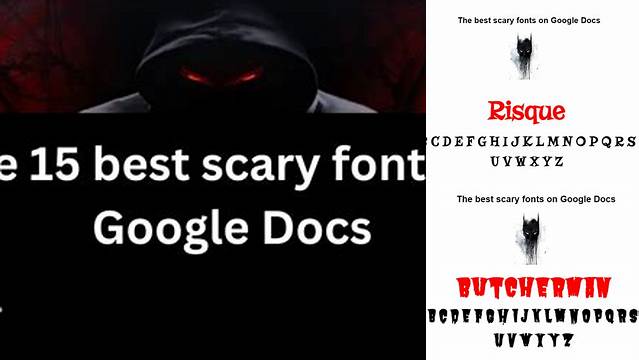
Scary Story Fonts For Google Docs
Hey guys! So, you're looking to amp up the spook factor in your Google Docs scary stories, huh? That's awesome! Choosing the right font can totally transform your writing from just words on a page to an immersive, chilling experience. It's like picking the perfect soundtrack for a horror movie – it sets the mood, builds suspense, and makes your readers' skin crawl. We're gonna dive deep into the world of fonts that scream 'creepy' and help you find that perfect typeface to make your terrifying tales truly unforgettable. Let's get this spooky party started!
The Power of Typography in Horror
Alright, let's talk about why fonts matter so darn much, especially when you're crafting a spine-chilling narrative. Think about it – when you see text in a super playful, rounded font, you probably don't feel a sense of dread, right? But then, you encounter a jagged, sharp font, and your brain immediately flags it as something potentially unsettling. That's the magic of typography, guys! For scary stories, the font isn't just decorative; it's a crucial storytelling tool. It can subtly (or not so subtly!) hint at the tone of your story, the nature of the threat, and even the psychological state of your characters. A wobbly, distressed font might suggest madness or decay, while a thin, elongated font could evoke a sense of fragility or a looming, skeletal presence. When you're writing for Google Docs, you have a pretty decent selection right at your fingertips, and knowing which ones to lean on can seriously elevate your horror game. It's all about creating an atmosphere, and your font choice is a silent, yet powerful, narrator in that process. So, let's explore some of the best options available to get that perfect, eerie vibe going for your next masterpiece!
Classic Serif Fonts for Gothic Horror
When you're aiming for that old-school, gothic horror vibe, you can't go wrong with classic serif fonts. Think Edgar Allan Poe, Bram Stoker, or Mary Shelley – their stories often conjure images of dusty libraries, flickering candlelight, and ancient curses. Serif fonts, with their little 'feet' or decorative strokes at the ends of letters, have a traditional, sophisticated feel that lends itself perfectly to these kinds of tales. They evoke a sense of history, formality, and often, a hidden darkness lurking beneath a polished surface. Imagine reading about a haunted mansion or a vengeful spirit, and the text itself looks like it belongs in a centuries-old tome. That's the power of a good serif! For Google Docs, you'll find some fantastic options. Fonts like Garamond, Times New Roman, and Georgia might seem commonplace, but in the context of a scary story, they can take on a whole new, sinister meaning. Garamond, with its elegant yet slightly austere feel, can suggest a brooding, intellectual horror. Times New Roman, while often seen as standard, possesses a certain gravitas that can underscore a tale of inescapable fate or psychological torment. Georgia, with its slightly wider stance and robust serifs, can feel grounded yet traditional, perfect for folklore-inspired horror or stories dealing with inherited dread. Don't underestimate these classics, guys! By choosing a serif font, you're tapping into a long literary tradition of horror, instantly signaling to your readers that they're about to embark on a journey into the unsettling and the profound. It's about creating a visual echo of the past, where shadows and secrets were often hidden in plain sight, just like those subtle serifs on the letters themselves.
Sans-Serif Fonts for Modern Thrillers
Now, if your scary story leans more towards the modern thriller or psychological horror genre, you might want to ditch the fancy serifs and go for something cleaner and more direct: sans-serif fonts. These fonts, as the name suggests, lack those little feet (serifs). They have a more contemporary, straightforward, and often stark appearance. Think about the sleek, minimalist design you see in modern tech thrillers or sci-fi horror. Sans-serif fonts convey a sense of immediacy, efficiency, and sometimes, a cold, clinical detachment. This can be super effective when you're dealing with themes of technology gone wrong, urban legends, or the unsettling nature of the mundane. For Google Docs, fonts like Arial, Verdana, and Roboto are your go-to guys. Arial, with its clean lines, can feel almost too normal, which makes the horror elements stand out in stark contrast. It's the unsettling calm before the storm. Verdana, designed for screen readability, has a friendly, open feel that can be jarring when juxtaposed with disturbing content, creating a sense of unease. Roboto, a popular choice for modern interfaces, offers a geometric and somewhat rigid structure that can emphasize control, order, and the potential for that order to be brutally disrupted. The starkness of sans-serifs allows the content of your horror to speak louder, without the visual distraction of decorative elements. It's about creating a sense of cold reality, where the horror isn't something mystical or ancient, but something immediate, plausible, and terrifyingly close. So, if your story involves hackers, AI gone rogue, or a chilling suburban nightmare, a sans-serif font is definitely your best bet, guys. It brings that contemporary edge that makes the terror feel all the more real.
Script Fonts for Creepy Handwritten Notes
Okay, imagine this: your reader is engrossed in your story, and suddenly, they encounter a passage that's clearly meant to be a ripped-out page from a diary, a frantic note passed between victims, or a cryptic message scrawled by a madman. What kind of font screams 'handwritten' and 'creepy' better than a script font? Script fonts mimic the look of handwriting, and when you choose the right one, you can inject a whole new level of dread and intimacy into your narrative. These fonts can convey desperation, instability, or a sense of a personal, unfiltered terror that typed text just can't capture. They feel immediate, raw, and deeply unsettling. In Google Docs, you might need to explore the 'More fonts' option to find some gems, but there are definitely script-style fonts that can work. Look for ones that are a bit irregular, perhaps slightly shaky, or have a flow that feels a little too frantic. Fonts that resemble distressed handwriting or have an almost illegible quality can be incredibly effective. Think about using a script font for a character's descent into madness, where their thoughts become increasingly fragmented and disturbing. Or perhaps for a series of cryptic warnings left by an unseen entity. The personal touch of a script font makes the horror feel more direct and inescapable. It's like the character's (or the monster's!) very thoughts are bleeding onto the page. The slight imperfections and the flow of script fonts can create a sense of unease, making the reader question the sanity of the writer or the true nature of the message being conveyed. It's a powerful tool for adding a layer of psychological depth and immediate horror. So, guys, don't shy away from script fonts – they can be your secret weapon for adding that perfect, chillingly personal touch to your scary stories!
Distressed and Grunge Fonts for Decay and Chaos
Sometimes, the horror isn't just psychological; it's visceral. It's about decay, destruction, and the breakdown of order. For these kinds of scary stories, you need fonts that look like they've been through the wringer. Distressed and grunge fonts are perfect for this. These fonts often have a rough, uneven, or 'damaged' appearance. Think ripped edges, ink splatters, worn textures, or a general sense of being broken. They immediately evoke feelings of rot, ruin, abandonment, and chaos. If your story involves a post-apocalyptic wasteland, a crumbling asylum, or creatures that are literally falling apart, these fonts are your best friends. They visually communicate the state of your world or your characters. In Google Docs, finding truly grungy fonts might take a bit of digging in the 'More fonts' section, or you might even consider adding a font if you're comfortable with that. However, you can often achieve a similar effect by modifying standard fonts – making them italic, bold, and perhaps playing with spacing if the tool allows. But if you can find a font that inherently looks weathered or broken, that's gold! Fonts that mimic stencil marks gone awry, have uneven 'ink' coverage, or look like they've been scraped onto a surface can be incredibly effective. They communicate a sense of struggle, of things falling apart, and of an environment that is actively hostile or decaying. This type of font choice really enhances the sensory experience of your horror, making the reader feel the grit, the grime, and the desperation. It’s about creating a visual representation of entropy and destruction. So, for stories where the setting itself is a source of horror, or where characters are physically or mentally deteriorating, distressed and grunge fonts are the way to go, guys!
Slab Serif Fonts for a Heavy, Ominous Feel
Let's talk about slab serif fonts, guys. If you're looking for a font that feels solid, heavy, and undeniably ominous, this is your jam. Slab serifs are characterized by their thick, block-like serifs – those little feet we talked about earlier? Well, in slab serifs, they're chunky and substantial. This gives the font a powerful, grounded, and often industrial or even retro feel. Think old Western movie titles, vintage signage, or classic horror movie posters from the 70s and 80s. They have a boldness that can be incredibly effective in horror because they command attention and can evoke a sense of brute force, inescapable fate, or a looming, heavy presence. For scary stories, a slab serif can suggest something powerful and relentless bearing down on your characters. It's not subtle; it's a direct, impactful statement. In Google Docs, you might find options like Arvo or Merriweather (which leans towards slab serif characteristics). Arvo is a great example – it's geometric, strong, and has those unmistakable thick serifs. Merriweather, while a bit more traditional, still carries a certain weight. Using a slab serif can make your titles or significant passages feel weighty and important, amplifying the sense of impending doom or a powerful, monstrous force. It’s a font that doesn't whisper; it thunders. This can be particularly effective for stories involving large, imposing creatures, industrial horrors, or narratives where the protagonist is up against an overwhelming, unyielding power. The sheer visual weight of the font mirrors the thematic weight of your story, making the horror feel substantial and hard to escape. So, when you want your horror to feel big, bold, and unavoidable, definitely consider a slab serif, guys!
Monospace Fonts for Computer-Based Horror
Alright, let's switch gears to a very specific type of horror: computer-based horror, or anything involving technology, code, or digital environments. For these kinds of scary stories, the absolute king is the monospace font. What's monospace, you ask? It means every character, from 'i' to 'w', takes up the exact same amount of horizontal space. Think of old typewriters or the command prompt on a computer screen. This gives monospace fonts a very distinct, rigid, and often retro-tech feel. For horror, this is gold! It immediately evokes the world of hacking, glitches, artificial intelligence gone rogue, or even cursed video games. The uniformity and mechanical nature of monospace fonts can feel cold, impersonal, and unnerving, which is perfect for stories where technology is the antagonist or the medium for horror. In Google Docs, you've got some solid choices. Courier New is the quintessential monospace font, instantly recognizable and associated with typing and code. Inconsolata is another great option, offering a slightly more modern take while maintaining that monospace structure. Source Code Pro is also excellent if available. When you use a monospace font, you're visually immersing your reader in the digital realm. It makes dialogue from an AI feel authentic, error messages look genuinely alarming, and snippets of code feel like they could unlock something terrifying. It adds a layer of realism to your tech-based horror that makes it all the more believable and, therefore, scarier. It's like looking directly into the machine, and realizing something sinister is looking back. So, guys, if your story involves anything digital or technological gone wrong, embrace the monospace font – it’s your most powerful ally in creating that chillingly authentic cyber-fear!
Condensed Fonts for Urgency and Claustrophobia
Ever read something where the text seems to be squeezed together, making you feel a bit... tight? That's the effect of condensed fonts, guys! Condensed, or narrow, fonts are taller and narrower than standard fonts, making them take up less horizontal space. This visual squeeze can be incredibly effective in horror, particularly when you want to convey a sense of urgency, panic, or claustrophobia. Imagine a character trapped in a small space, frantically trying to escape, and the text reflecting their desperation by being crammed together. It creates a feeling of being overwhelmed and hemmed in, mirroring the character's physical or psychological state. In Google Docs, you can find condensed versions of popular fonts, or dedicated condensed fonts like Oswald (which has a condensed style) or some variations you might find under 'More fonts'. The key is that packed, tight appearance. When used sparingly, a condensed font can highlight moments of extreme tension. Think of a chase scene, a moment of realization where everything is closing in, or dialogue exchanged under duress. The font itself seems to be struggling for breath, just like your character. This visual cue amplifies the emotional impact of the scene, making the reader feel the pressure alongside the protagonist. It's a subtle but powerful way to manipulate the reader's perception and deepen their immersion in the frightening situation. So, if you want your readers to feel the walls closing in or the clock ticking down with agonizing speed, give condensed fonts a try, guys. They're perfect for squeezing every last drop of tension out of those critical moments!
Expanding Fonts for Unsettling Growth or Presence
On the flip side of condensed, let's talk about fonts that expand. While less common for direct horror, certain expanded or wide fonts can create an unsettling sense of presence or unnatural growth. Think of fonts that are noticeably wider, with letters that seem to stretch out, almost filling the page. This can evoke a feeling of something looming, overwhelming, or unnatural taking hold. It's like a shadow stretching, or a monstrous entity slowly expanding its influence. For Google Docs, you might look for fonts described as 'wide' or 'extended', or perhaps explore options that have very broad letterforms. Some display fonts can achieve this effect. The key is that the font feels disproportionately wide, creating a visual weight that can be disorienting. Imagine using such a font for descriptions of something ancient and vast, or for the internal monologue of a character who feels their mind expanding beyond control. It can create a sense of unease because it defies normal expectations of text density. It feels 'too much,' almost suffocating in its breadth. This can be used to represent cosmic horror, where the sheer scale of the universe or an alien entity is the source of terror, or for a supernatural presence that is growing and consuming everything. It's not about speed or urgency, but about a creeping, overwhelming dominance. The visual expanse of the font can mirror the terrifying scope of the horror itself. So, while subtle, guys, an expanded font can be a unique tool to suggest an encroaching, pervasive dread that fills every available space, much like the horror itself is filling your character's world.
Variable Fonts for Dynamic Terror
Now, this is where things get really cool and a bit more advanced, guys: variable fonts. Variable fonts are a newer technology that allows a single font file to contain many different styles – think different weights (thin to bold), widths (condensed to expanded), and even more stylistic variations, all within one font. This means you can dynamically change the appearance of your text on the fly. How does this help scary stories? Imagine a character's voice getting stronger and more menacing, or weaker and more fearful, and you can actually change the font weight in real-time within your Google Doc (though this requires careful handling and might be more for visual presentation). For basic text, you can use the range of weights within a variable font to create subtle shifts in tone. For instance, start a passage with a lighter weight for a sense of vulnerability, and gradually increase the weight to build intensity and dread. Or use extreme weights – very light for a ghostly whisper, very bold for a monstrous roar. Google Docs might not have full variable font control for every single font, but the concept is powerful. Some fonts available might have a wider range of weights you can access. This dynamic control allows you to visually represent changes in your narrative – a character's growing fear, a monster's increasing power, or a sudden shift in atmosphere. It’s about making the typography active in your storytelling, not just static. So, as you explore fonts, keep an eye out for those with multiple weight options – they can be a fantastic tool for adding nuanced layers to your horror, guys!
Bold and Heavy Fonts for Impactful Scares
Sometimes, you just need to hit your reader with a punch, right? For those moments in your scary story that demand immediate attention and impact, bold and heavy fonts are your best friends. These aren't just slightly thicker than normal; we're talking fonts with significant visual weight. Think of fonts that look like they've been carved into stone or stamped with industrial machinery. They have a commanding presence and are perfect for emphasizing critical words, phrases, or even entire terrifying sentences that you want to stand out. In Google Docs, you'll find the 'Bold' option, of course, but for a truly heavy feel, you'll want to look for fonts that are inherently designed to be thick and impactful. Fonts like Impact (though maybe a bit cliché, it gets the point across!), Oswald in its heavier weights, or potentially some of the bolder slab serifs can serve this purpose. The sheer visual mass of these fonts makes them impossible to ignore. Use them strategically for jump scares, shocking revelations, or declarations of doom. Imagine a single word like "RUN" appearing in a massive, bold font right before a character encounters danger. It’s a visual scream that jolts the reader. This technique is fantastic for breaking up the rhythm of your text and creating moments of intense focus. It’s about using the visual strength of the font to underscore the thematic strength of your horror. So, when you need your words to hit like a ton of bricks, don't hesitate to go bold and heavy, guys. It's a classic technique for a reason!
Italic Fonts for Whispers and Unease
Ah, italics. They might seem subtle, but guys, italic fonts are a seriously underestimated tool in the horror writer's arsenal. While often used for emphasis or foreign words, italics can also create a distinct sense of unease, fragility, or something being 'off.' The slanted nature of italics can make text feel less grounded, more ethereal, or even a bit frantic, depending on the font. This makes them perfect for representing whispers, internal thoughts that are barely coherent, or passages that feel dreamlike and disturbing. Think of a character hearing voices, or recalling a fragmented, nightmarish memory. An italic font can visually convey that wavering, uncertain quality. In Google Docs, simply selecting text and hitting the 'I' for italics is easy. But the effect it creates is profound. You can use it to make a character’s internal monologue feel invasive and unsettling, as if their thoughts are being broadcast in a strange, slanting script. Or imagine using italics for the words of a ghostly presence – something not quite solid, just a voice on the edge of hearing. It adds a layer of subtle creepiness that can really get under the reader's skin. It’s not as overt as bold text, but it’s a persistent hum of discomfort. So, when you want to add that extra layer of psychological disturbance or represent something fleeting and spectral, don't forget the power of the italic, guys!
Stencil Fonts for Industrial or Military Horror
Let's get industrial, guys! Stencil fonts have that unmistakable look – letters with little cutouts or breaks in them, designed originally so the stencil could be used without the insides of letters falling out. Think military crates, industrial signage, or escape maps. This aesthetic immediately brings to mind themes of war, confinement, machinery, and a gritty, utilitarian world. For scary stories, stencil fonts can be incredibly effective when your horror is set in an industrial complex, a military facility gone wrong, a dystopian prison, or involves themes of oppressive systems. The broken, fragmented nature of the letters can visually suggest damage, decay, or a system that is breaking down. In Google Docs, you might find specific stencil fonts, or fonts that mimic the stencil style. Look for those distinctive breaks in the letterforms. Using a stencil font can make your writing feel stark, impersonal, and even a bit dehumanizing, which perfectly complements stories about large, uncaring institutions or the horrors of war. It’s a font that feels functional and rough, suggesting that the world your characters inhabit is not a pleasant one. It can also imply messages that are meant to be seen under harsh conditions, or warnings that are stark and direct. So, if your story is about surviving a brutal environment or facing the cold, mechanical horrors of industry or conflict, a stencil font is a killer choice, guys!
Typewriter Fonts for Retro Chills
Going back to our friend monospace, typewriter fonts are a specific subset that brings a wonderful dose of retro chills to your scary stories. These fonts mimic the look of old mechanical typewriters – think uneven ink, slightly crooked letters, and that distinct, mechanical feel. They immediately transport your reader to a different era, conjuring images of classic detective stories, old horror novels, or even found footage that feels like it was typed out decades ago. In Google Docs, Courier New is the classic example, but you can also find others that add subtle imperfections to mimic the typewriter effect more closely. The charm of these fonts lies in their imperfections. That slight unevenness in the 'ink' or the subtle misalignment of letters can feel both nostalgic and unsettling. It gives a sense of authenticity, as if the text has been physically imprinted onto the page through effort and mechanical struggle. This is perfect for stories that have a vintage feel, or when you want to present evidence or confessions from the past. It adds a layer of gritty realism that makes the horror feel more tangible. It's like holding a piece of history, but that history is dark and terrifying. The tactile quality of a typewriter font can make the reader feel more connected to the narrative, as if they are holding the very documents that contain the terrifying secrets. So, guys, for that authentic, old-school horror vibe, you really can't beat a good typewriter font!
Pixel Fonts for Digital Nightmares
Let's dive back into the digital realm, but this time, think retro video games and early computer graphics. Pixel fonts are designed to look like they're made of tiny squares, or pixels. This aesthetic is strongly associated with the early days of computing and gaming, and when applied to horror, it can create a unique and deeply unsettling vibe. Think of cursed 8-bit games, corrupted digital files, or AI interfaces from the 80s and 90s. The blocky, jagged nature of pixel fonts can feel primitive and glitchy, which is perfect for conveying digital decay or a digital entity that isn't quite right. In Google Docs, finding true pixel fonts might require searching in the 'More fonts' section or even adding custom fonts. Look for fonts with very distinct, square-like letterforms. Using a pixel font can evoke a sense of nostalgia that is twisted into something terrifying. It takes something familiar and beloved (retro gaming) and corrupts it, making it a source of dread. It's perfect for stories where the horror originates from within a digital space, or when a digital entity begins to manifest in the real world. The limited resolution of the font visually reinforces the idea of something being incomplete, corrupted, or not fully formed, adding to the mystery and horror. So, guys, for that unique blend of retro charm and digital dread, pixel fonts are a seriously cool option!
Decorative Fonts for Emphasis and Shock Value
Sometimes, you just need a font that screams 'look at me!' Decorative fonts are designed to be eye-catching and unique, often featuring elaborate designs, unusual shapes, or a highly stylized appearance. While they should be used very sparingly in scary stories, they can be incredibly effective for moments of extreme shock, supernatural manifestation, or when you want to visually represent something otherworldly or chaotic. Think of a font that looks like dripping blood, thorny vines, or abstract, nightmarish symbols. These fonts are all about creating a strong visual impact and conveying a specific, often extreme, emotion or concept. In Google Docs, you'll likely find these under the 'More fonts' section, or they might be referred to as 'display' fonts. The key is to choose a decorative font that enhances your horror, rather than distracting from it. A dripping blood font might be perfect for a scene involving gore, while a sharp, spiky font could represent a monstrous entity. However, overuse is the enemy here, guys. Too much decoration can make your story look cluttered and amateurish. Use these fonts like a visual exclamation point – for a single word, a title, or a very short, crucial phrase that needs maximum impact. They are your secret weapon for adding a memorable visual element that amplifies the terror of a specific moment. So, use them wisely and with intention, and they can deliver some serious shock value!
Handwriting Fonts for Personal Terror
We touched on script fonts earlier, but let's delve deeper into the broader category of handwriting fonts, guys. These fonts aim to mimic the natural variations and imperfections of human handwriting, ranging from neat cursive to messy scrawls. For scary stories, the key is to select a handwriting font that leans towards the unsettling. Think messy, shaky, hurried, or even slightly distorted. These fonts add a deeply personal and immediate layer to your horror. When a character is writing something in distress, fear, or madness, their handwriting often reflects it. Using such a font can make the reader feel like they're directly peering into the character's mind or holding a physical artifact of their terror. In Google Docs, search for fonts that look like genuine handwriting. Options like Dancing Script (can be eerie if used for dark content) or others that mimic a more hurried or uneven hand can work. You can use these fonts for journal entries, desperate pleas, cryptic notes left behind, or even the rambling thoughts of a disturbed individual. The intimacy of handwriting makes the horror feel more real and relatable. It's not just a story; it's a personal account of suffering or fear. This makes the reader feel more invested and vulnerable. So, for that chillingly personal touch that makes your horror hit closer to home, guys, handwriting fonts are an absolute must-have!
How to Find and Use Fonts in Google Docs
Alright, let's get practical, guys. Finding and using these fonts in Google Docs is super straightforward, but knowing where to look can make all the difference. First off, when you're typing, you'll see the font dropdown menu at the top. Most of the common fonts we've discussed (like Arial, Times New Roman, Garamond, Courier New) are right there. But for the more unique or specialized fonts, you need to click on the dropdown and then select 'More fonts' at the very top. This opens up a huge library! You can scroll through, search by name, or even filter by category (though Google Docs' categorization isn't always perfect for horror vibes). Once you find a font you like, click on it, and then click 'OK'. It will then be added to your main font dropdown list for easy access later. Now, when it comes to using them effectively in your scary stories: Don't overdo it! Seriously. Pick one or two fonts that best suit the overall mood of your story and use them consistently. You might reserve a special font for specific elements, like a creepy note or a title, but the bulk of your story should have a readable, atmospheric font. Think about readability – even the scariest font needs to be legible enough for your reader to follow along. Test it out! Write a few sentences in the font you're considering and see how it feels. Does it enhance the mood? Is it too distracting? Experimentation is key. Remember, the goal is to support your story, not overwhelm it. So, explore that 'More fonts' menu, have fun, but use your font choices with intention, guys!
Readability vs. Atmosphere: Finding the Balance
This is a crucial point, guys, and it’s something you really need to nail when picking fonts for your scary stories: the balance between atmosphere and readability. On one hand, you want a font that screams 'horror' – something jagged, distorted, or unsettling. On the other hand, your reader needs to be able to actually read your story without straining their eyes or getting frustrated. If a font is too complex, too broken, or too condensed, it can pull your reader out of the narrative. They’ll be struggling to decipher the words instead of being immersed in the fear. So, what’s the magic formula? Generally, for the main body text of your story, it’s best to stick with fonts that are clear and readable, even if they have a subtle atmospheric quality. Think of those classic serifs like Garamond or Georgia, or clean sans-serifs like Arial or Verdana. You can enhance their scariness through context – the words themselves, sentence structure, and pacing. Then, for specific elements – like chapter titles, particularly terrifying words, or those creepy notes – you can absolutely bring in your more decorative or distressed fonts for maximum impact. This creates a dynamic reading experience. The stable, readable text provides a foundation, and the occasional atmospheric font accentuates the horror. It’s like using quiet moments in music to make the loud parts even more impactful. So, always ask yourself: 'Can my reader easily follow this?' If the answer is shaky, even the coolest-looking font might be the wrong choice for the main text, guys. Prioritize clarity first, then layer on the creepiness strategically!
Font Pairing for Maximum Spookiness
Okay, so you've picked a main font, but how do you add even more layers of 'eek!'? Font pairing, my friends! This is where you combine two or more fonts to create a richer, more dynamic reading experience, and it’s a fantastic way to amp up the spookiness. The general rule of thumb is to pair a more decorative or atmospheric font with a simpler, more readable font. Think of it like this: one font sets the overall mood, and the other handles the narrative legwork. For scary stories, a common and effective pairing is a classic serif or a clean sans-serif for the main body text (for readability!) and then a distressed, script, or stencil font for titles, chapter headings, or special highlighted sections. For example, you could use Merriweather for your story's paragraphs – it has a nice, readable weight with a touch of old-world charm. Then, for your chapter titles, you could switch to something like Creepster (if available) or a bold slab serif to make them stand out with a sinister flair. Another great combo might be a clean Roboto for the narrative, and then Dancing Script for any journal entries or desperate messages found within the story. The contrast between the two fonts highlights the different elements of your story and draws the reader's attention to the more unnerving parts. It's all about creating visual interest and guiding the reader's eye to the moments you want them to focus on. So, guys, don't be afraid to experiment with combining fonts – just make sure they complement each other and serve the overall atmosphere of your terrifying tales!
Using Font Size for Suspense and Dread
Beyond just the style of the font, guys, let’s talk about size. Font size is another powerful, yet often overlooked, tool for building suspense and dread in your scary stories. Think about how the physical size of text on a page can affect your perception. A small, cramped font can feel claustrophobic and insignificant, while a massive, looming font can feel threatening and overwhelming. In Google Docs, adjusting font size is as simple as clicking the number next to the font name. You can use this creatively! For moments of extreme fear or when a character feels insignificant, shrinking the font size can visually represent that feeling of being small and powerless. Imagine a passage describing a character utterly lost and alone in a vast, dark space – making the text tiny can really drive that home. Conversely, for moments of intense confrontation, the appearance of a monstrous entity, or a sudden, shocking revelation, increasing the font size dramatically can create a sense of dread and inevitability. A single word like "BEWARE" appearing in huge, bold letters can be incredibly impactful. It's like the threat is literally looming over the reader. You can also use gradual changes in font size to build tension. Starting a paragraph slightly smaller and having it subtly increase in size can create a feeling of unease, as if something is growing or becoming more prominent. It’s about using the physical dimensions of the text to mirror the emotional and psychological state of your narrative. So, play around with those numbers, guys! Font size is a surprisingly potent weapon in your horror storytelling toolkit.
The Impact of Line Spacing (Leading)
We've talked about fonts, sizes, and even pairing them up, but what about the space between the lines? That, my friends, is called leading (pronounced 'ledding'), and it's another subtle but mighty tool for crafting atmosphere in your scary stories. Line spacing, or leading, refers to the vertical distance between lines of text. In Google Docs, you can easily adjust this via the 'Line spacing' option in the toolbar. Tight line spacing (where lines are very close together) can create a sense of density, pressure, and even claustrophobia. It can make the text feel crammed and overwhelming, mirroring a character feeling trapped or suffocated. Imagine reading about someone being buried alive, and the text itself feels like it's being crushed together. It adds a physical sensation to the dread. On the other hand, wider line spacing can create a sense of airiness, isolation, or even unease, depending on the context. If a story is about loneliness or vast emptiness, generous spacing can emphasize that isolation. However, it can also make text feel sparse and delicate, perhaps suitable for ghostly apparitions or fleeting thoughts. For horror, often a slightly tighter than default spacing can increase the intensity. It makes the reader feel the weight of the words pressing in. But you can also use wider spacing strategically to create pauses, build anticipation before a scare, or emphasize the emptiness of a deserted space. It’s all about how the white space (or lack thereof) affects the reader’s perception of the text. So, guys, don't forget to tweak your line spacing – it’s a simple adjustment that can have a big impact on the overall mood and tension of your horror!
When to Use All Caps (and When NOT To)
Alright, let's talk about the big guns: ALL CAPS. This is a font formatting choice that should be used with extreme caution in scary stories, guys, because it can be incredibly powerful but also easily overdone. ALL CAPS instantly signifies shouting, loudness, and intense emphasis. It's the visual equivalent of a scream or a thunderous pronouncement. In horror, this can be incredibly effective for moments of absolute terror, sudden shock, or when a character is literally screaming. Think of a monster's guttural roar being represented by ALL CAPS text, or a character yelling a desperate warning. It immediately grabs the reader's attention and conveys a sense of urgency and panic. However – and this is a huge however – using ALL CAPS for too long or too frequently can be jarring and exhausting for the reader. It can make your writing feel like it's constantly yelling, which loses its impact and can even become annoying. It's like listening to someone shout the entire time; eventually, you tune it out. So, the key is strategic use. Use it for single, impactful words (like "HELP!" or "RUN!"), short, sharp phrases, or crucial shouted dialogue. Reserve it for those moments where you absolutely need maximum impact and want to convey extreme emotion. For longer passages, it's generally better to use bold or a different font style. So, guys, wield the power of ALL CAPS like a precision tool – use it sparingly and intentionally for maximum terrifying effect!
Creating a Font Style Guide for Your Story
To really bring your scary story to life with typography, consider creating a simple 'font style guide' for yourself. This isn't about making a formal document; it's more about defining the visual language of your horror. Think about the main font you'll use for the body text – this sets the baseline atmosphere. Then, decide which other fonts (or styles like italics, bold, ALL CAPS) you'll use for specific purposes: maybe one font for titles, another for dialogue from a specific character (like a ghostly whisper or a gruff monster), a third for found documents (like journal entries or letters), and perhaps a special font for moments of extreme terror or supernatural events. In Google Docs, you can achieve this by setting your default font and then manually changing fonts for specific sections as needed. You can also use styles (like Heading 1, Heading 2) which can be pre-formatted with specific fonts. For example, you could set 'Heading 1' to be your creepy title font, and 'Normal text' to be your readable body font. This consistency is key. It helps build a subconscious understanding for your reader. They learn to associate certain visual styles with certain narrative elements, which deepens their immersion. So, guys, before you dive too deep into writing, take a few minutes to plan your visual strategy. Decide on your core fonts and how you'll use them to enhance the mood and clarity of your terrifying tale. It's a small step that pays big dividends!
Testing Your Fonts on Different Devices
Super important tip, guys: once you've chosen your fonts and styled your scary story, make absolutely sure you test how it looks on different devices. What looks amazing on your big desktop monitor might appear slightly different, or even unreadable, on a smaller phone screen or a tablet. Google Docs is pretty good with responsive design, but fonts can sometimes render differently across operating systems and screen resolutions. Take your story and open it on your phone, maybe on a friend's computer if you can. Read through a few key sections. Are the scary fonts still legible? Does the atmosphere come across as intended? Is there any weird spacing or formatting issues that pop up? This is especially crucial if you plan to share your story digitally. You want the intended chilling effect to be consistent for everyone, no matter how they're reading it. Sometimes, a font that looks perfectly distressed on a high-res screen might just look like a mess on a lower-res device. So, a quick cross-device check can save you from potential reader frustration and ensure your horror lands exactly as you planned. It's a simple step, but it ensures your terrifying vision translates effectively to all your readers, guys!
Final Thoughts: Choosing the Right Font is Key
So there you have it, guys! We've journeyed through the spooky landscape of fonts available in Google Docs and explored how each type can contribute to your terrifying tales. Remember, the font you choose isn't just about making your words look pretty; it's a powerful narrative tool. It sets the mood, enhances the atmosphere, and can even mirror the psychological state of your characters or the nature of the horror itself. Whether you're leaning into classic gothic vibes with serif fonts, modern dread with sans-serifs, or intimate terror with handwriting fonts, the right choice makes a huge difference. Don't forget the importance of readability, strategic pairing, and judicious use of special effects like ALL CAPS or varying sizes. The goal is always to serve the story, drawing your reader deeper into the chilling world you've created. So go forth, experiment with those fonts in Google Docs, and make your scary stories absolutely unforgettable. Happy writing, and may your tales be truly terrifying!